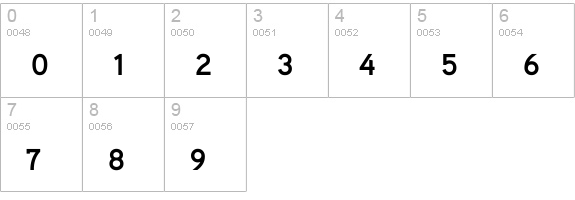
Aaux ProMedium SC Font Details
Aaux ProMedium SC font is a versatile and modern typeface designed for various design projects. With its clean lines and balanced proportions, Aaux ProMedium SC exudes professionalism and sophistication. This font is perfect for headlines, subheadings, and body text in both print and digital media. What makes Aaux ProMedium SC stand out is its unique ability to convey elegance and clarity simultaneously. The font's medium weight strikes the perfect balance between readability and impact, making it suitable for a wide range of applications. Best of all, Aaux ProMedium SC is available for free download at FontsMarket.com. This means that you can easily access and use this high-quality font in your projects without any cost. Whether you're working on a website, brochure, poster, or any other design, Aaux ProMedium SC is a versatile choice that will elevate your work to the next level.